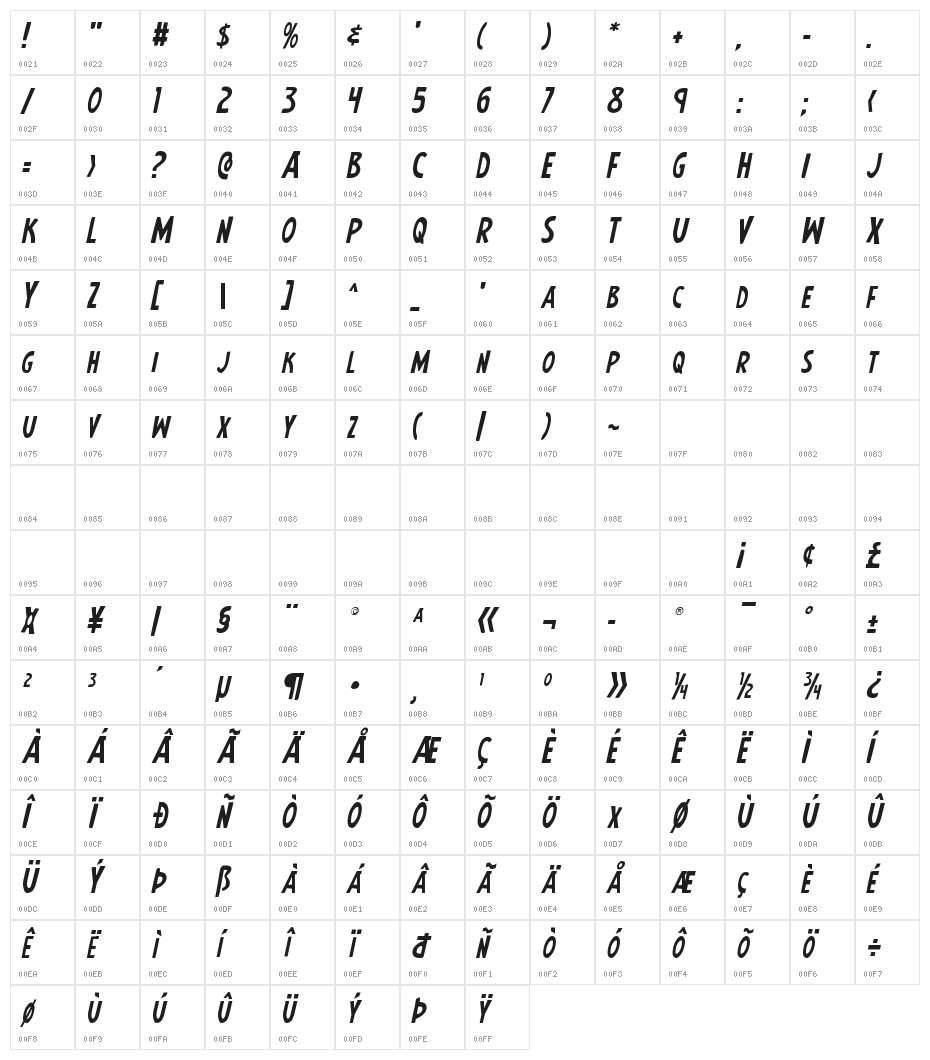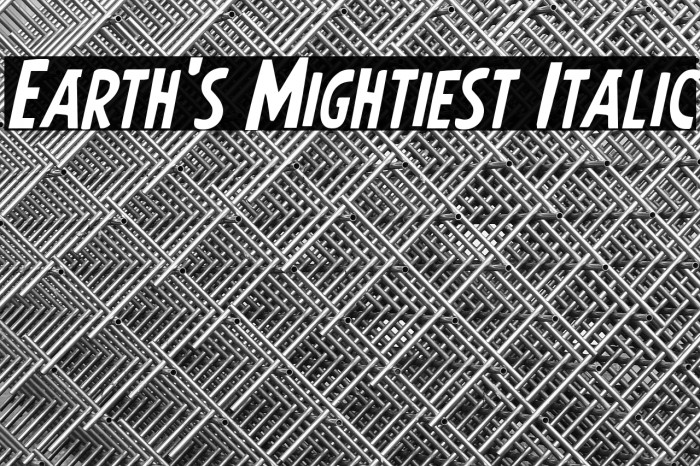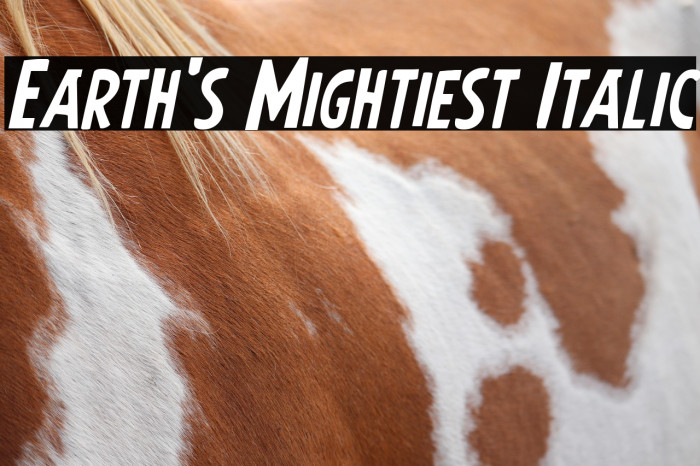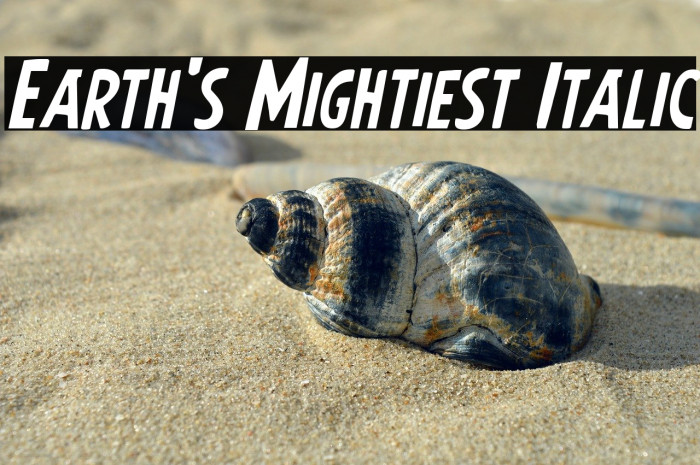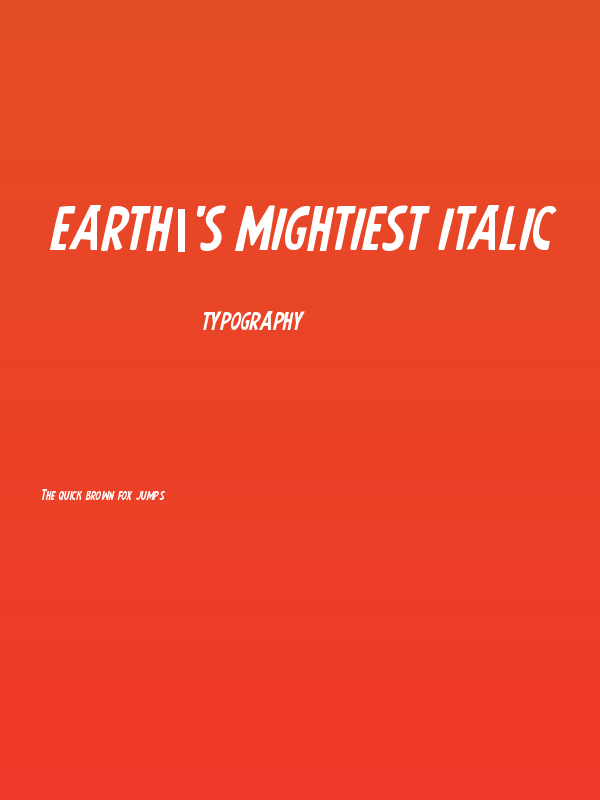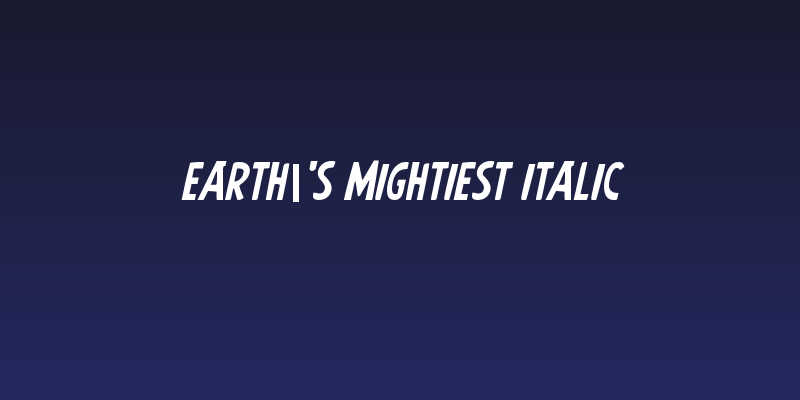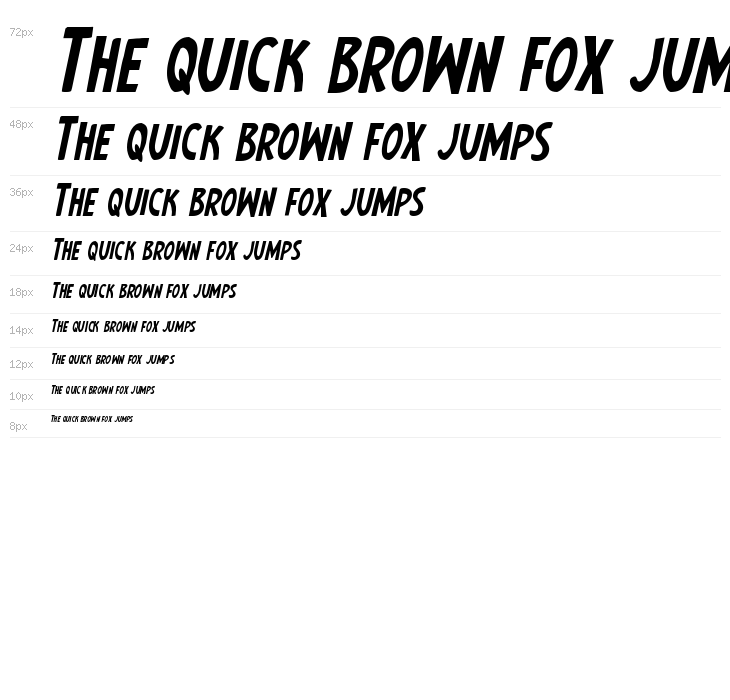
Earth's Mightiest Italic Font
Earth's Mightiest Italic Description
This font features a bold and dynamic style with a strong italic slant, giving it a sense of motion and energy. The characters are thick and robust, with a slightly condensed width that enhances its impactful appearance. The uppercase and lowercase letters maintain a consistent style, with smooth curves and sharp angles that create a modern and assertive look. The numbers and special characters are equally bold, ensuring uniformity across all glyphs. This font's design is ideal for making a statement, with its high contrast and distinctive style.